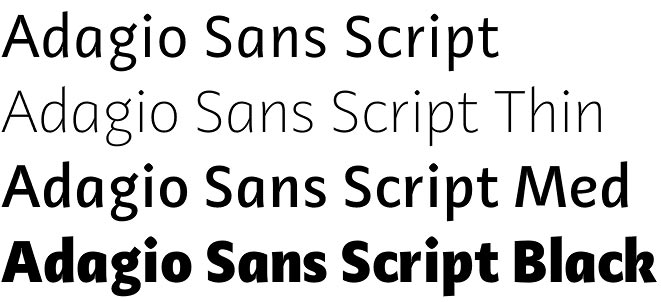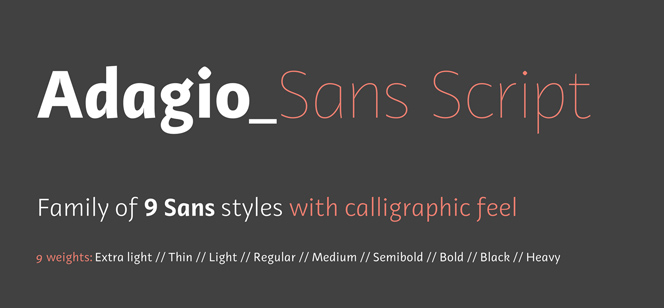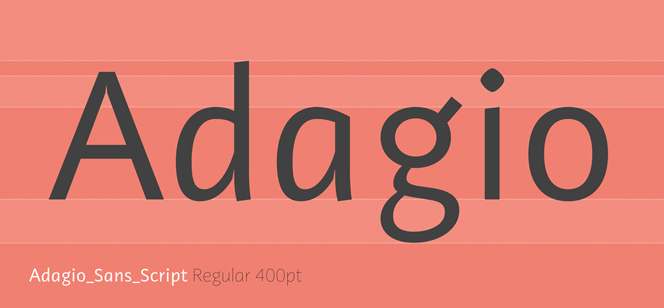
Adagio Sans Script
Adagio Sans Script is very fresh yet elegant sans serif family with well designed elements of calligraphy. Developed in 9 weights this hot new family is the latest addition to the growing Adagio font collection by the Poland based designer Mateusz Machalski. Poland and polish design has always been a synonym of quality and perfection and their typographic tradition is so well-known and professionally done that it has actually become one of the keystones of modern typography. All these are quite visible in Adagio Sans Script – from the elegance and low contrast in Extra Light weight, thru the fresh and vivid mid weights and finally to the amazing juicy heavy weight and its amazing ink traps. All designed with same perfection and professionalism following one rhythm in growing contrast, showing excellent readability and a lot of character in every glyph, resulting in one original design incorporating contemporary humanistic sans serif typography with more elements of natural hand-writing restyled correctly to fit the overall look of the family. Great for corporate identity, editorial design, as well as e-books, PDF documents, web font, etc.
Designer: Mateusz Machalski
Publisher: Borutta